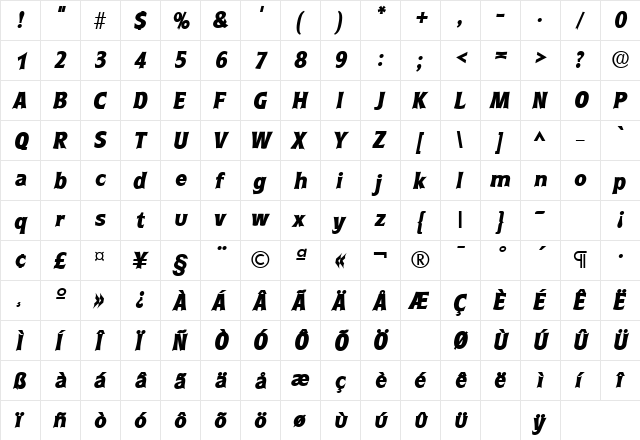
RoundestLH Bold Italic
Design Context for RoundestLH Typeface
RoundestLH uses gentle rounded endings to create a warm, inviting typographic personality — less corporate than geometric sans, more refined than playful display fonts. The dynamic lean of this cut emphasises speed and emphasis in any layout. Its bold stroke weight gives it real presence on the page.
Well-suited to UI design, mobile interfaces, and any brand that wants approachability without sacrificing clarity.
Font Pairing: Pairs well with a rounded or humanist sans for body copy, maintaining the friendly tone without relying on RoundestLH to carry extended reading.
Pro Tip: Use RoundestLH for UI elements, app interfaces, and anywhere a friendly, approachable tone needs to be maintained without sacrificing clarity.